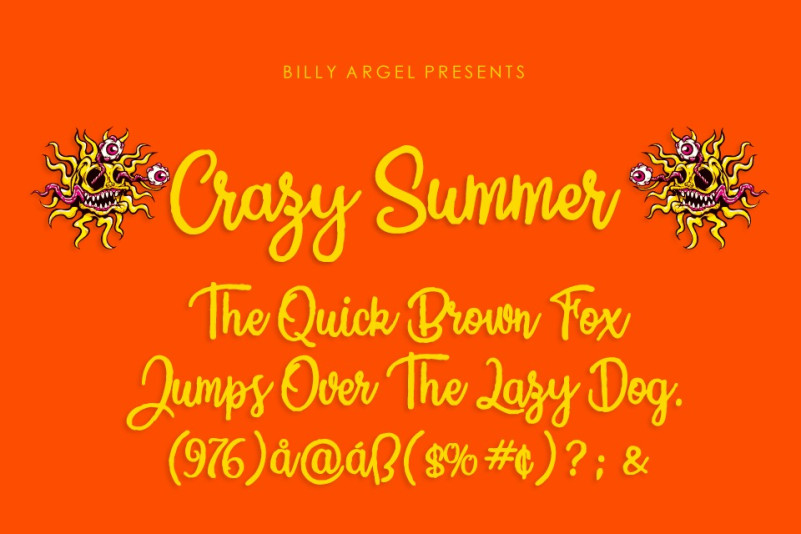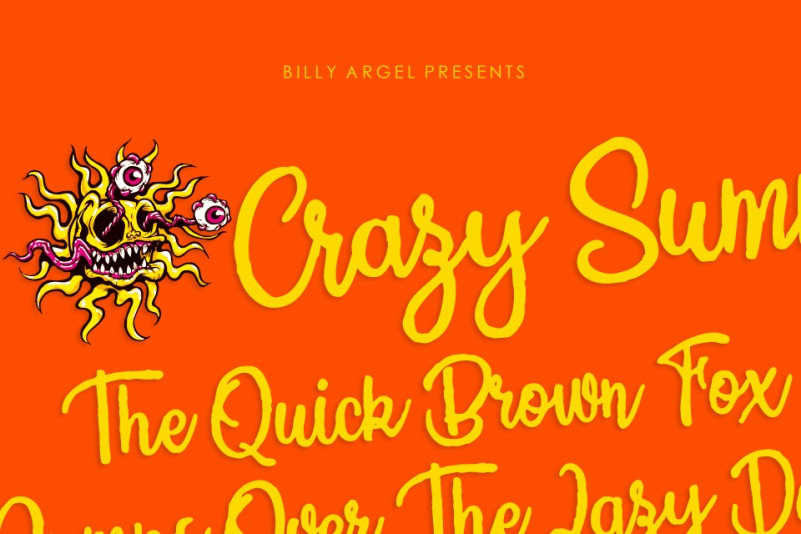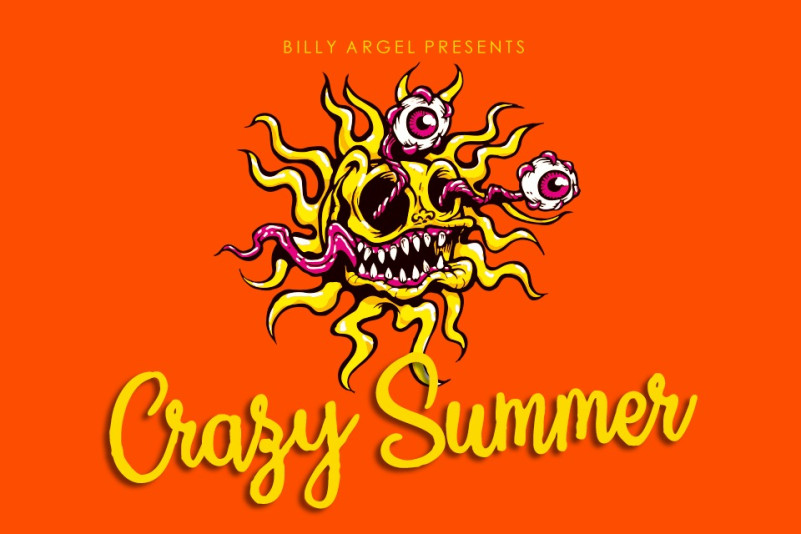
Crazy Summer Font
Crazy Summer Font,  Ideal for logos, handwritten quotes, product packaging, header, poster, merchandise, social media & greeting cards. This file allows incorporation in PDF and the standard license is for corporate and personal identities, watermarks, logos, merchandise, promotional items, monetization of videos and YouTube channels, collections of clothing, t-shirts, portfolios, crafts, layouts, CDs, labels, etc …